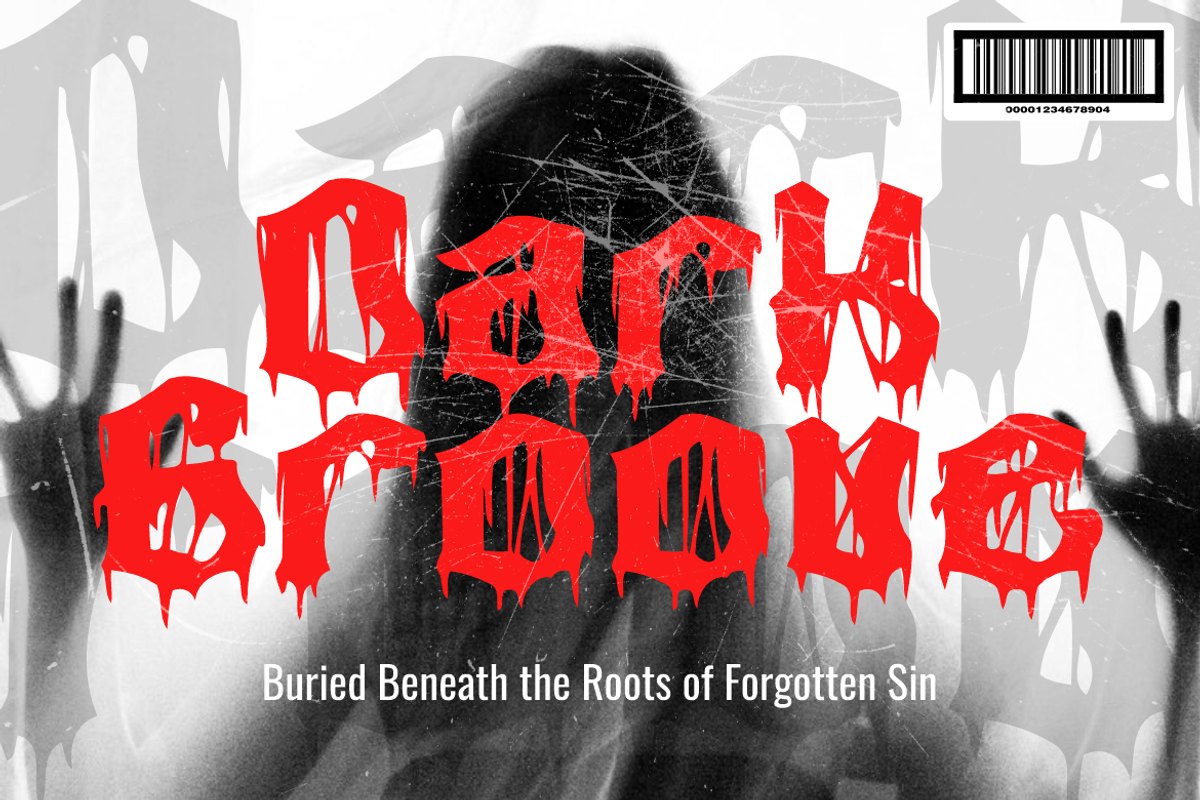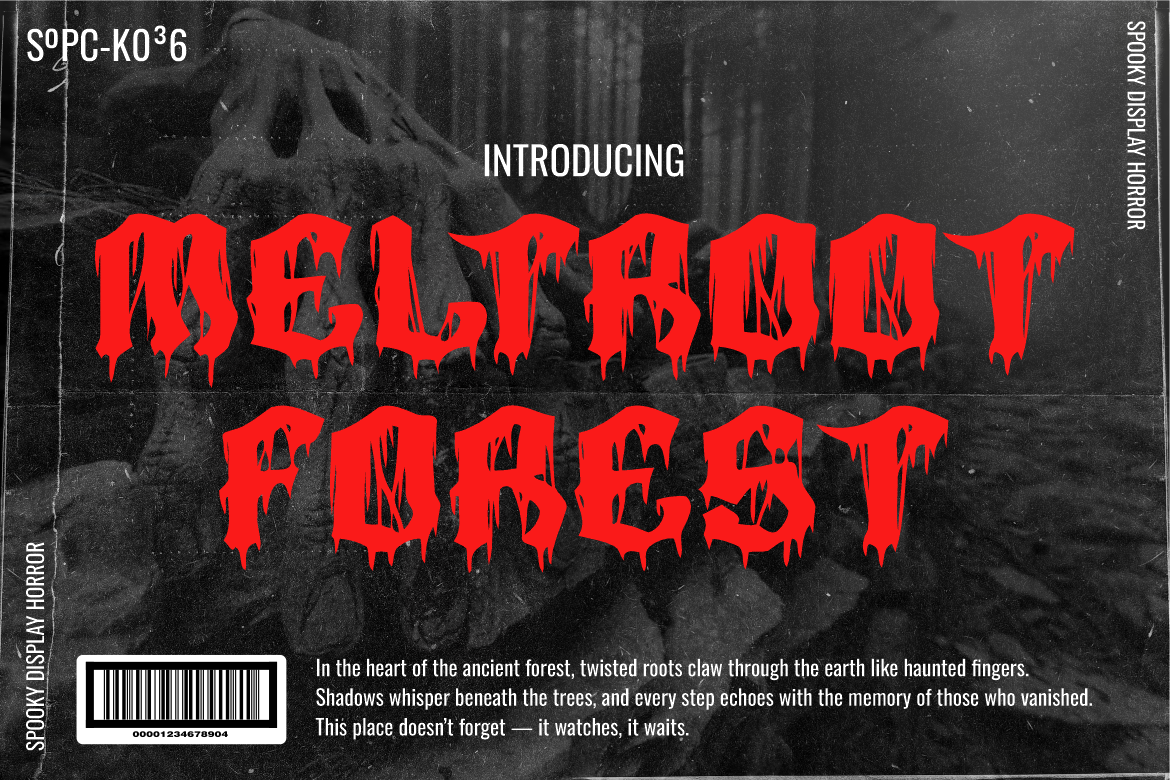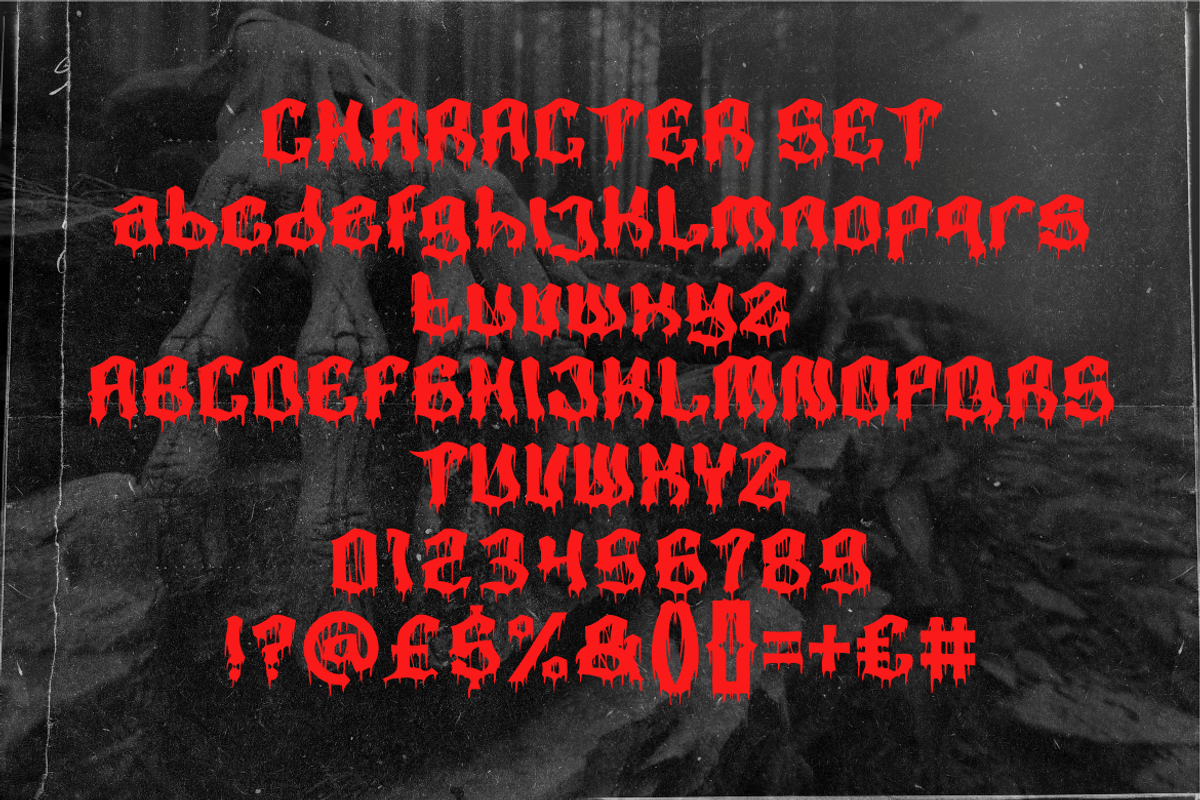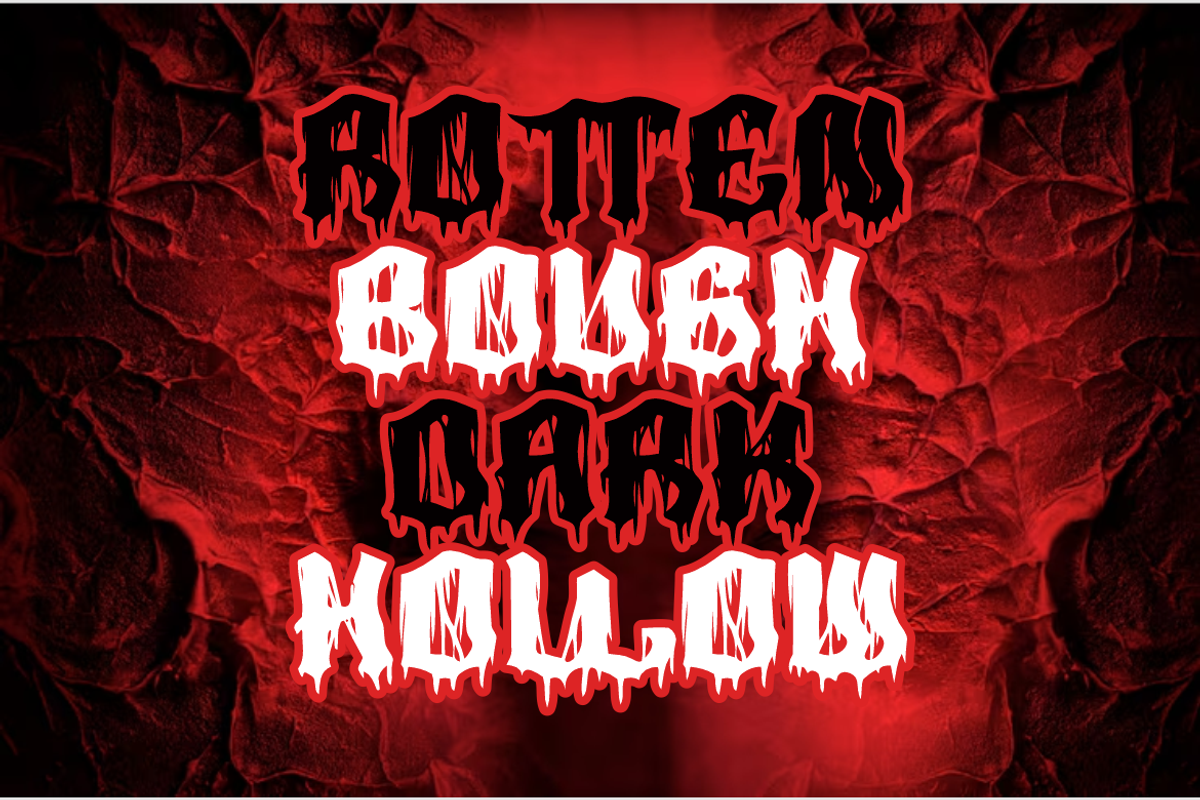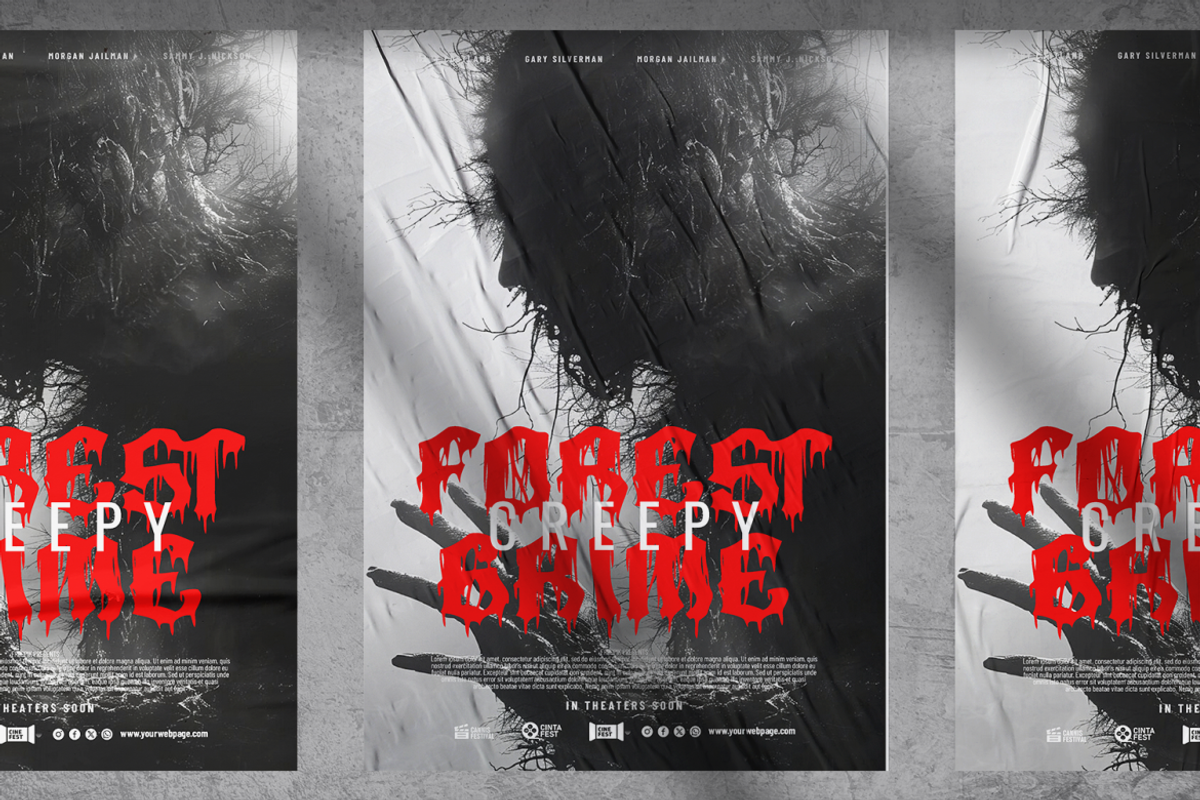
Meltroot Forest Spooky Horror Font
Meltroot Forest is a spine chilling spooky horror font that captures the essence of darkness and dread. Inspired by haunted woods and vintage horror film posters, this typeface oozes fear with every stroke. Each letter is masterfully distorted with bleeding, melty edges that resemble dripping blood or molten wax—perfect for enhancing the sinister atmosphere of any design. The rugged, irregular shapes give it a hand carved look, ideal for horror branding, slasher film titles, eerie product packaging, and Halloween events. The uppercase and lowercase glyphs maintain a jagged yet readable silhouette, ensuring impact without sacrificing legibility. Whether set against dark imagery or fiery backgrounds, this font delivers a powerful scare factor.
Designed for versatility in horror centric projects, Meltroot Forest works excellently on movie posters, book covers, and creepy merch. It thrives in bold layouts and layered compositions, instantly drawing viewers in with its dramatic flair. This font doesn’t just scream horror—it embodies it. Add fear, depth, and tension to your storytelling visuals with a font made for unforgettable chills. The included character set covers all caps, lowercase, numbers, and spooky symbols, giving creators full freedom to explore terrifying typographic possibilities.